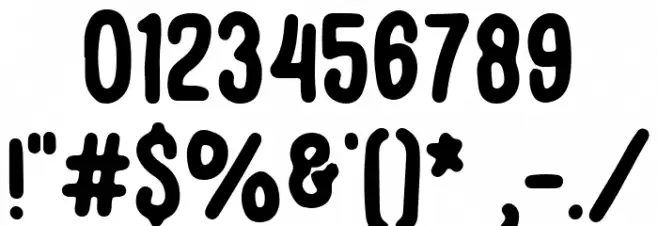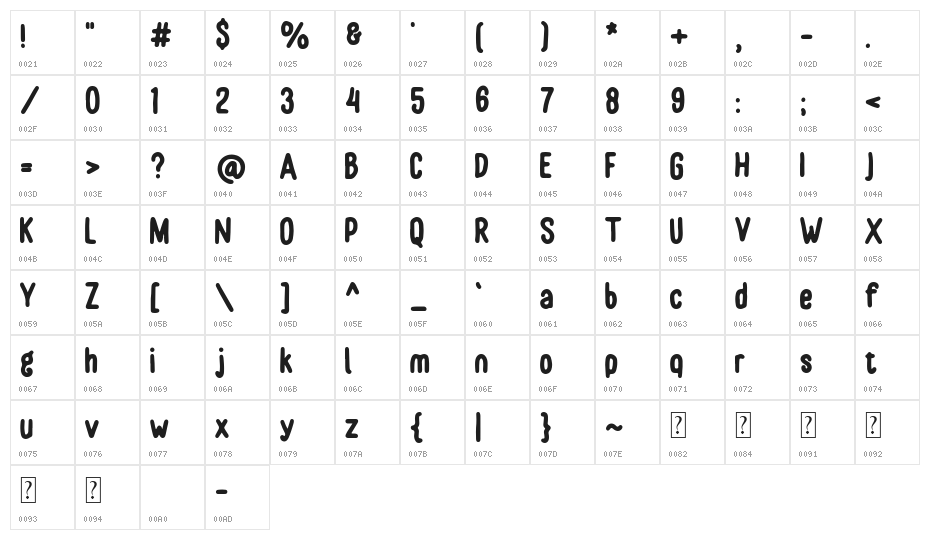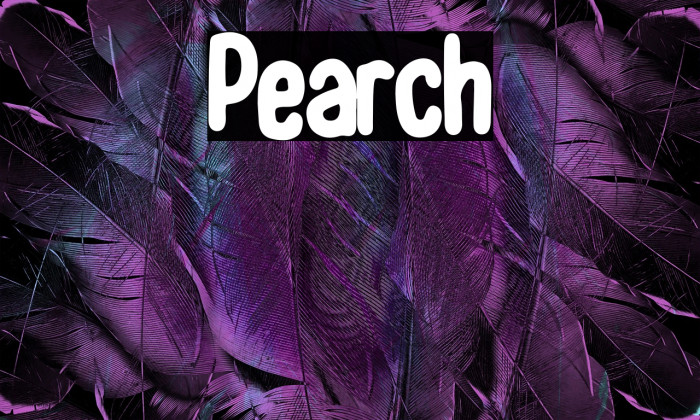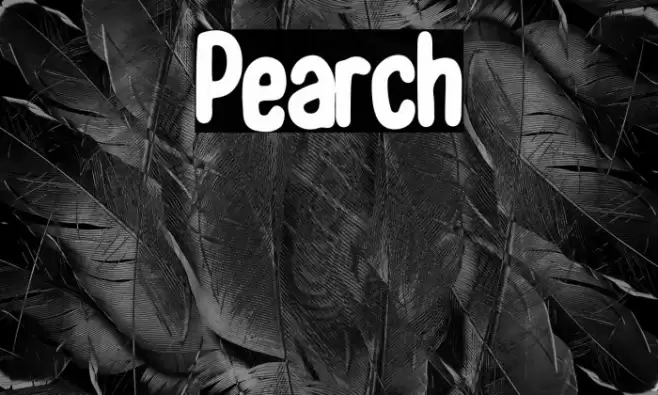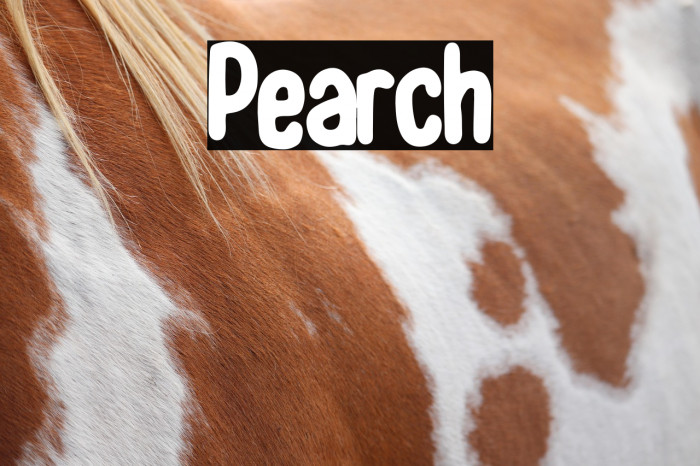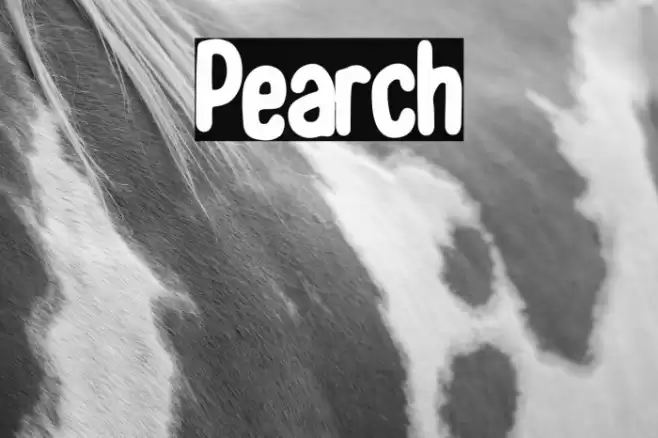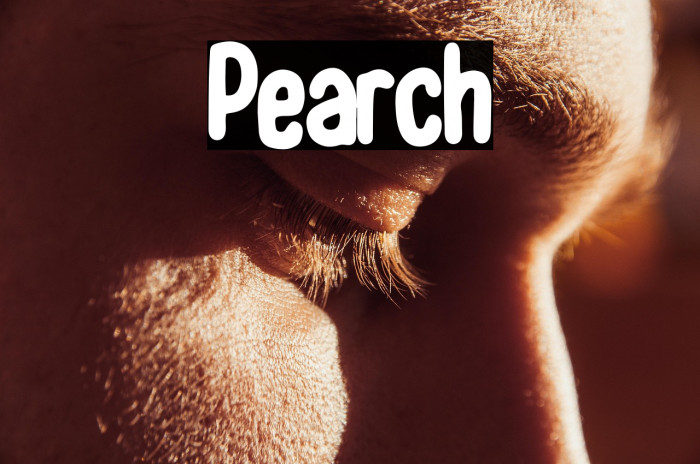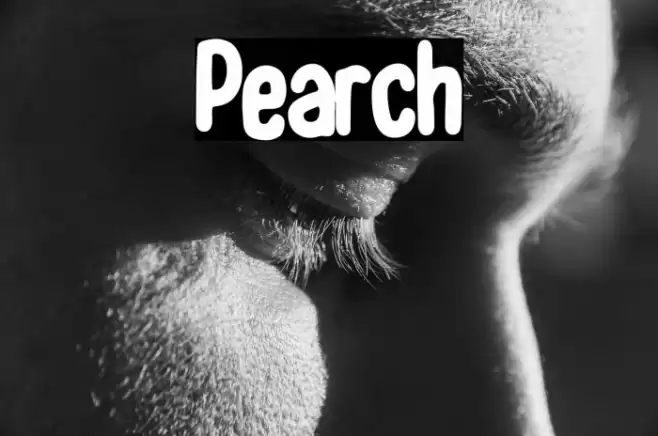
Pearch Font
This playful and bold font features rounded, thick strokes that give it a friendly and approachable appearance. The characters are slightly irregular, adding a hand-drawn feel that enhances its charm. With its high legibility and unique style, it stands out in any design. The font includes a full set of uppercase and lowercase letters, numbers, and a variety of special characters, making it versatile for different uses. Its boldness and rounded edges make it particularly suitable for designs that require a fun and informal touch.
Overall StylePlayful, Informal
Proposed ProjectsIdeal for children's books, playful branding, posters, and social media graphics.